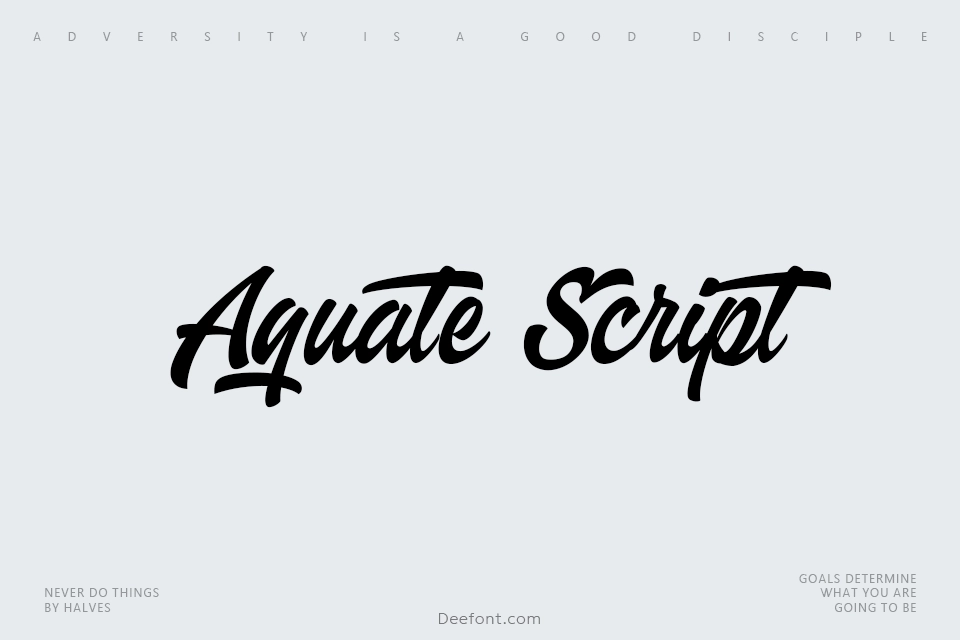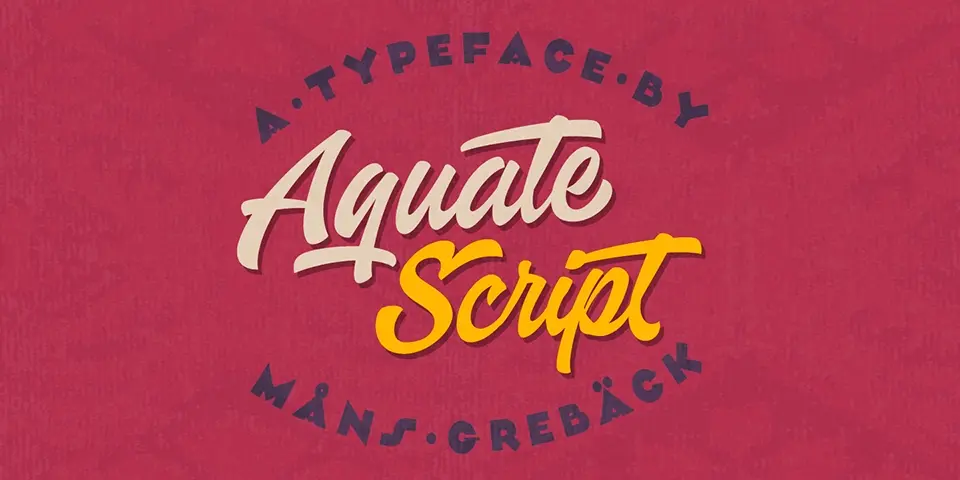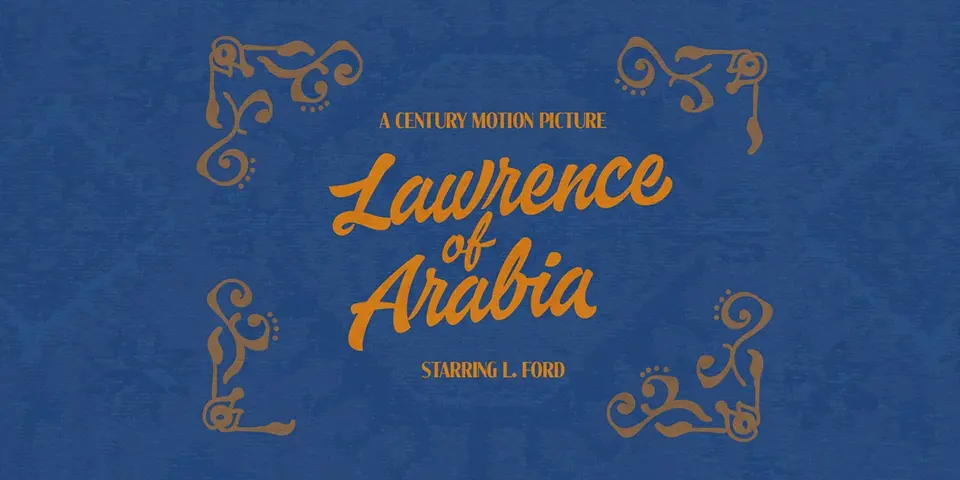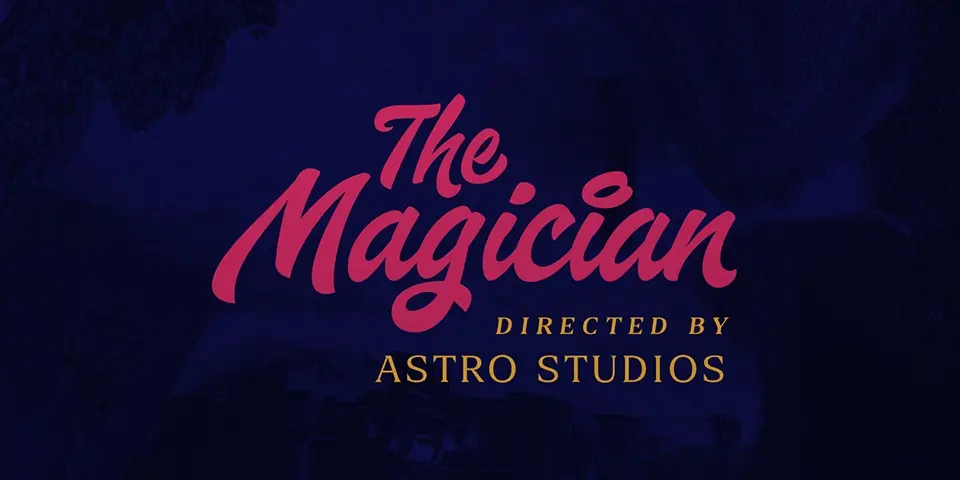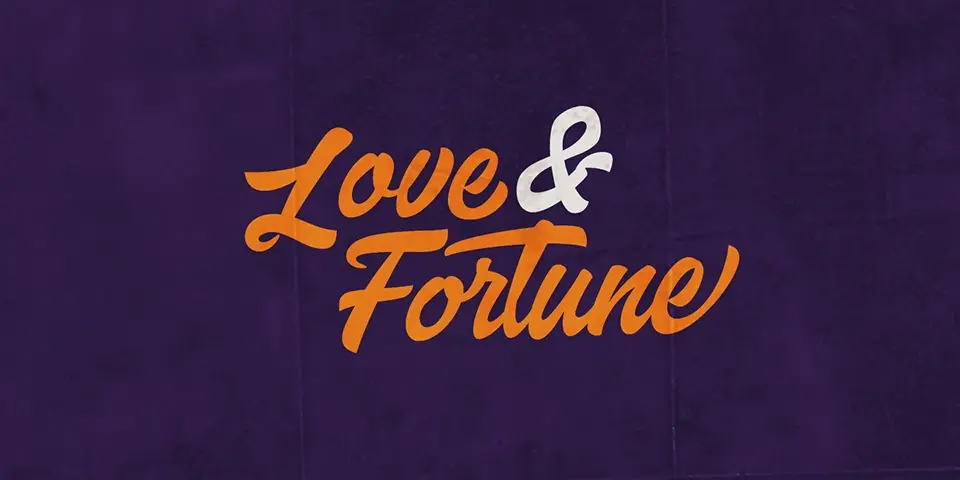
Aquate Script Font
Aquate Script is a professional brush script typeface crafted by Måns Grebäck. This dynamic calligraphy font features bold, confident curves contrasting with sharp edges, making it ideal for logos, headlines, and branding projects. With multiple alternate alphabets, it delivers a custom, hand-painted aesthetic perfect for adding elegance and personality to your creative designs.